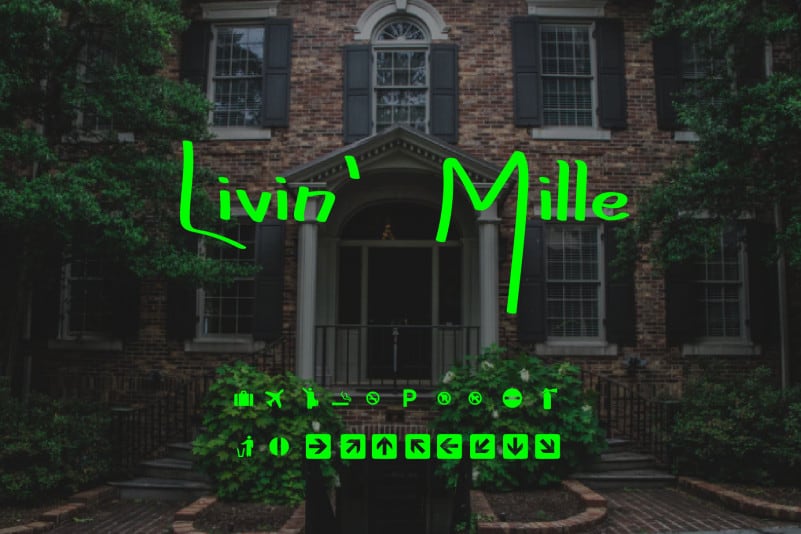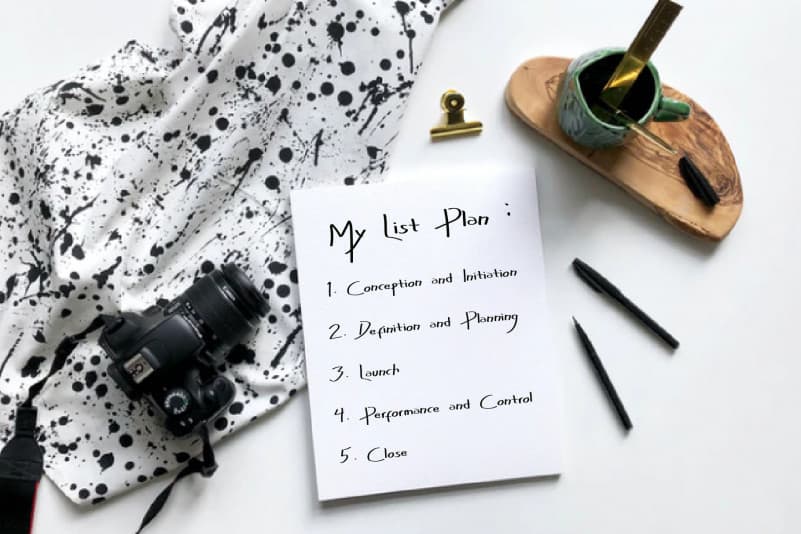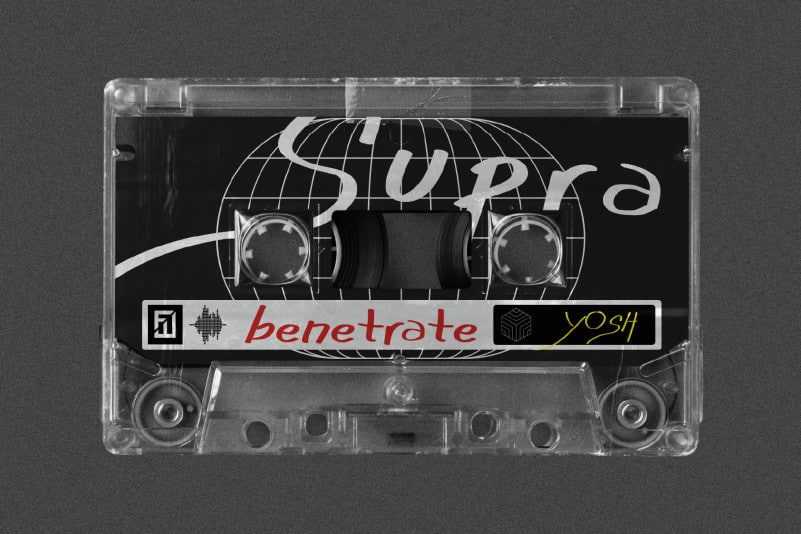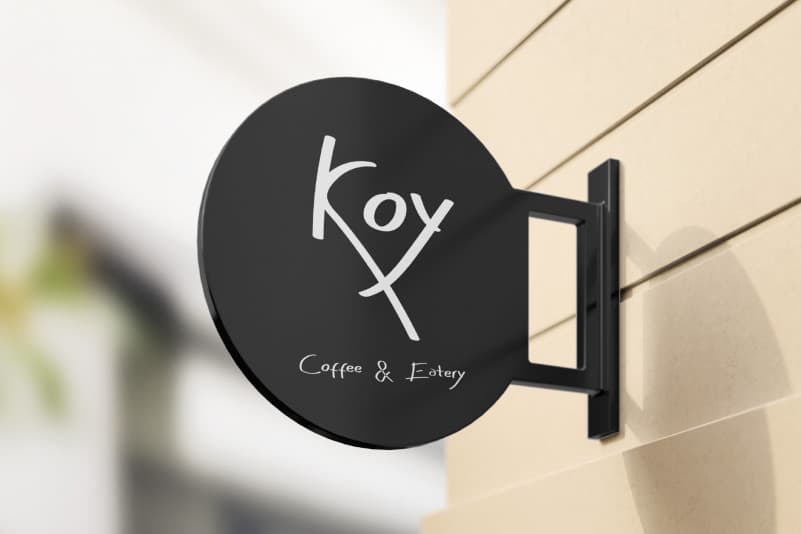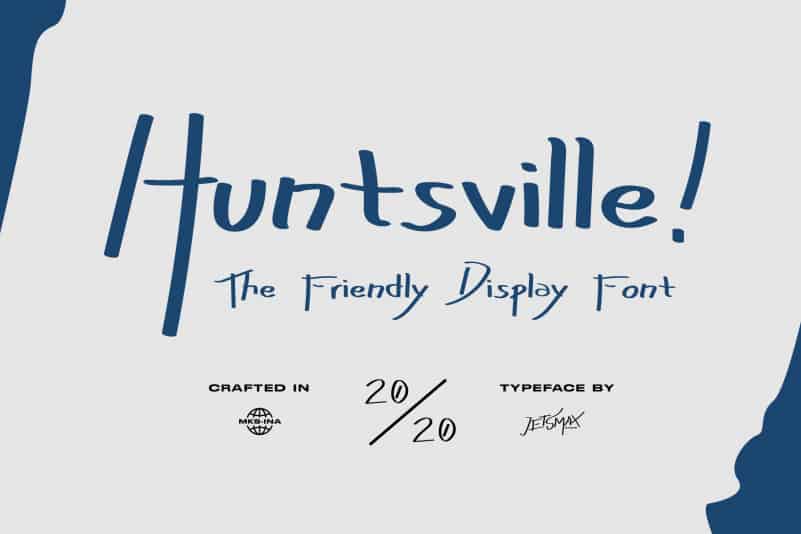
Huntsville! – Friendly Display Font
Huntsville! – Friendly Display Font is a cool display font with a happy and lively theme. With its neat and beautiful arrangement of letters, this typeface will look outstanding in both formal and non-formal designs.
Huntsville! – Friendly Display Font gives a gorgeous feel to a variety of branding projects, logos, wedding designs, social media posts, advertisements, and so much more. Let your imagination run free!